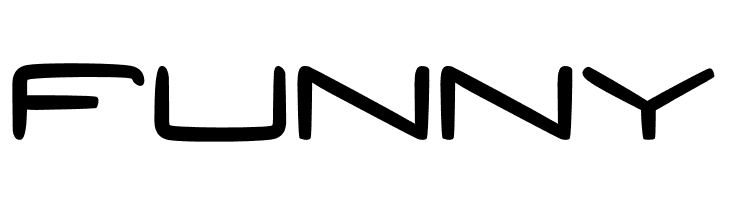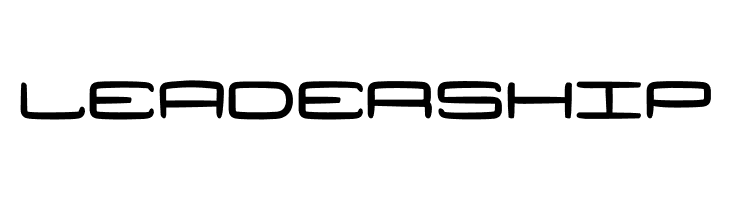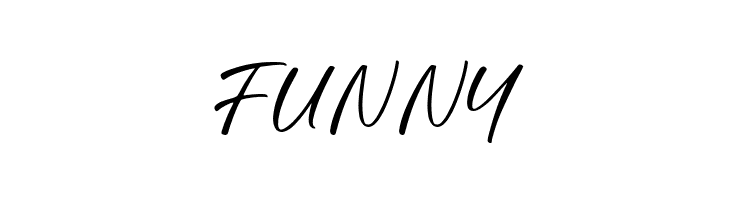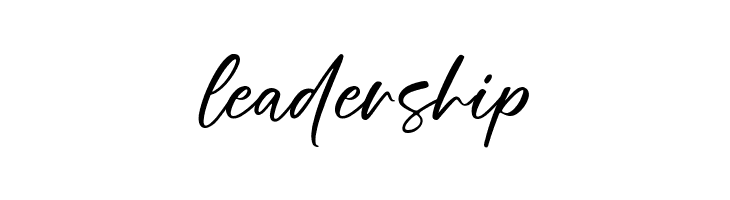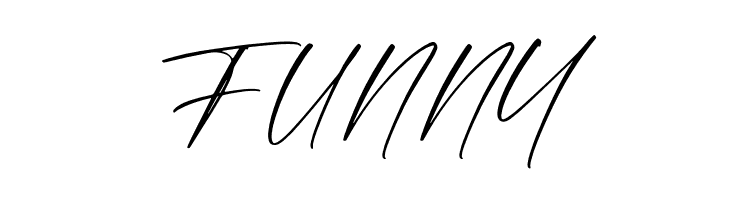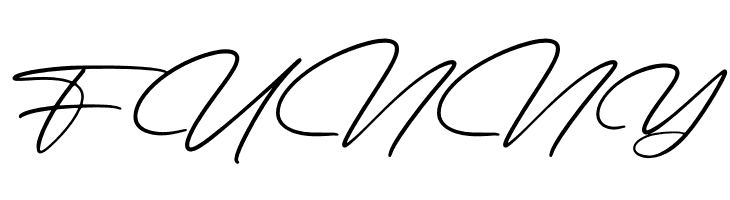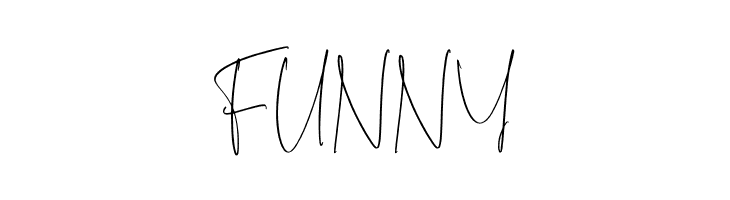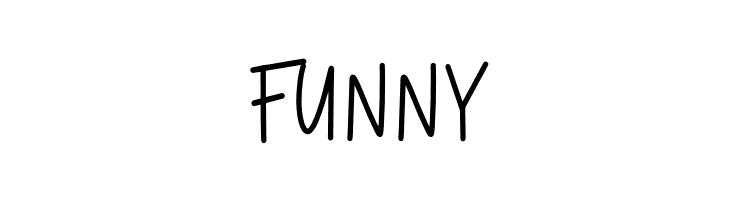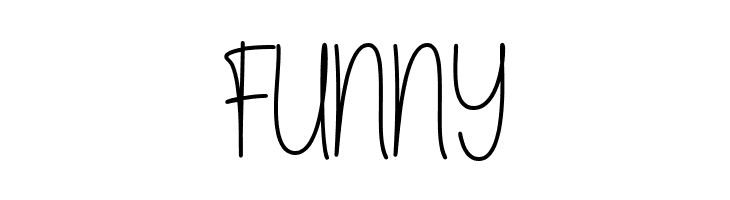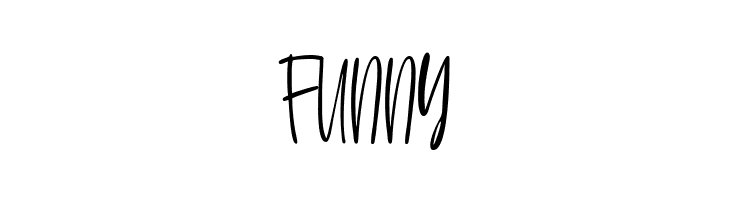
A dynamic, expressive handwritten font with fluid, flowing letterforms.
A dynamic and flowing script font with elegant, expressive letterforms.
A graceful, cursive script font with a natural handwriting style.
A modern, cursive font with a handwritten feel and elegant flow.
A fluid and elegant script font with a dynamic handwritten style.
Elegant cursive script font with a handwritten style.
A bold, expressive handwritten font with dynamic strokes.
An elegant and flowing script font with graceful curves and continuous strokes.
A futuristic, geometric font with rounded edges and consistent stroke width.
A bold, modern script with a handwritten, playful style.
A playful, handwritten font with a dynamic and artistic flair.
Elegant cursive script font.
Elegant script font with calligraphic flair.
Elegant, handwritten cursive script with fluid, connected strokes.
A playful, casual handwritten font with irregular strokes and a whimsical appearance.
A bold, high-contrast serif font with dramatic strokes and elegant serifs.
A bold, high-contrast serif font with modern elegance.
A bold, condensed serif font with sharp, angular serifs and minimal contrast.
Elegant and decorative script font.
Playful handwritten font with rounded edges.
Tall, whimsical sans-serif with playful rounded forms.
A dynamic, expressive handwritten font with fluid, cursive letterforms.
A dynamic, fluid handwritten font with a casual and informal style.
A playful, bold handwritten font with rounded strokes and a casual style.
Casual handwritten script font.
A playful, handwritten font with tall, narrow letterforms and a whimsical style.
A whimsical, handwritten font with flowing, delicate strokes and a playful style.